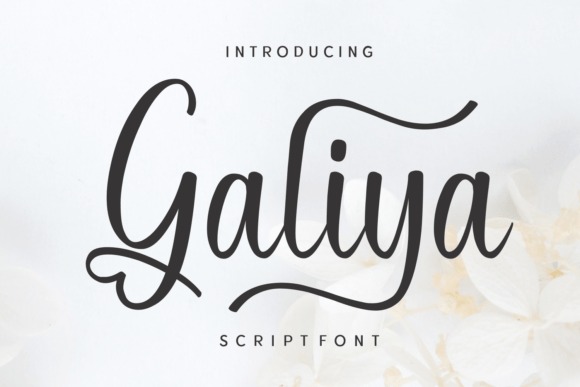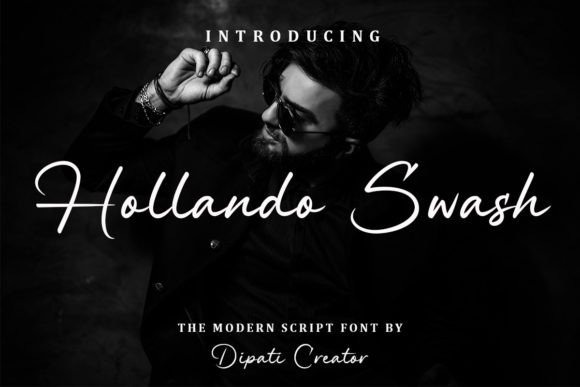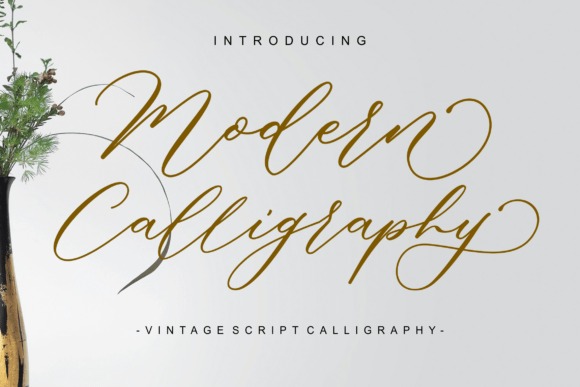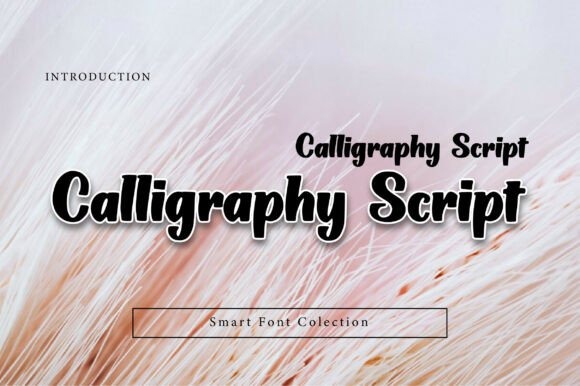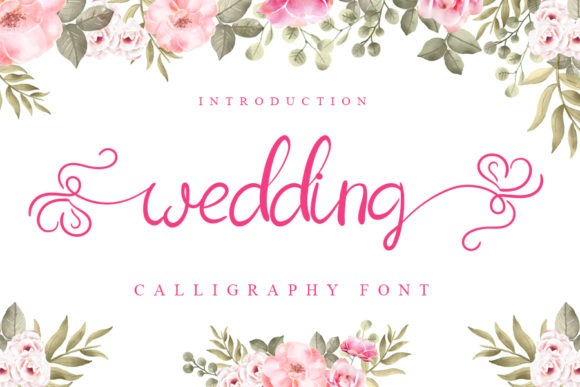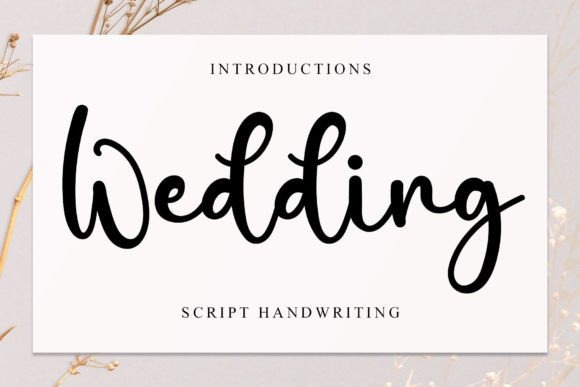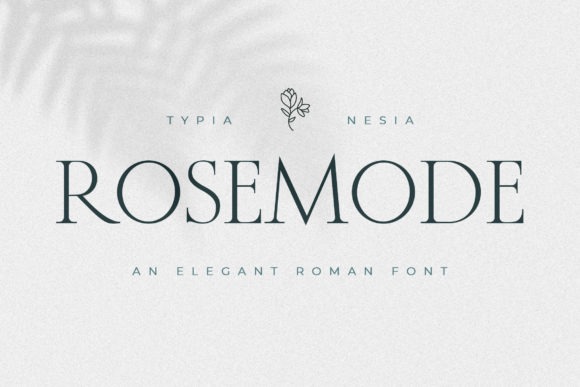
Choosing the Best Wedding Fonts in Canva for Invitations
The best wedding fonts in Canva-style invitation designs usually do one of two jobs: create a memorable romantic focal point or keep important details polished and readable. I like combining an expressive script for the couple’s names with a restrained serif for the date, venue, RSVP information, and smaller supporting copy.
For this list, I focused on Creative Fabrica fonts that suit elegant invitation layouts rather than collecting nineteen similar calligraphy faces. You’ll find graceful scripts, understated handwritten styles, and luxury-inspired serifs that can help with everything from formal black-tie stationery to airy garden wedding suites. These are downloadable font files rather than a claim that every typeface comes preinstalled in Canva.
The best wedding fonts for elegant Canva invitation designs balance romance with readability. Use flowing scripts such as Joseph Sophia or Galiya for names and short headings, then choose a refined serif such as Rosemode, Notica Serif, or Zarla for structured text. If your Canva workspace supports custom font uploads, compatible font files can be added through Canva’s font-upload tools.
| Joseph Sophia | Romantic couple names | Script |
| Filanttica | Classic invitations | Cursive script |
| Our Wedding | Formal stationery | Calligraphy script |
| Galiya | Modern luxury invites | Elegant script |
| Hollando Swash | Decorative name treatments | Swash script |
| Modern Calligraphy | Traditional romance | Calligraphy |
| Calligraphy Script | High-contrast headlines | Calligraphy script |
| Wedding Sweet | Relaxed romantic suites | Script |
| Wedding by YanStudio | Contemporary calligraphy | Handwritten script |
| Rosemode | Editorial invitations | Thin serif |
| Notica Serif | Luxury headings | Display serif |
| Zarla | Modern formal layouts | Serif |
| Luxora Serif | Soft luxury stationery | Display serif |
| Luxury Fashion | Fashion-led weddings | Display serif |
| SerifLuxe | Romantic statement text | Decorative serif |
| Simple Fits | Minimalist invitations | Thin script |
| Wedding Invitation | Personalized headings | Handwritten |
| Sweetheart Serif | Romantic themed details | Decorative serif |
| Elegant | Floral wedding details | Decorative font |
19 Elegant Wedding Fonts for Canva Invitation Projects
1. Joseph Sophia
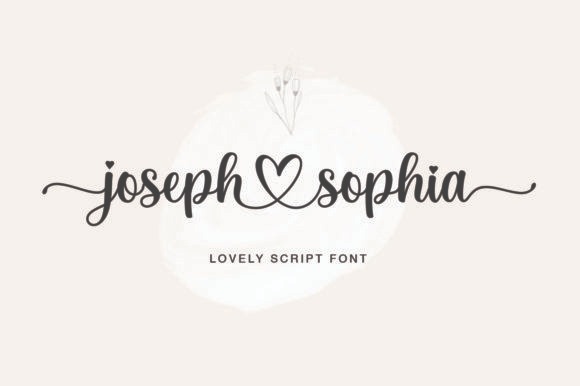
Joseph Sophia is a flowing handwritten script for romantic names, monograms, and short invitation headlines. Its varied baseline, smooth strokes, glyphs, alternates, and decorative swashes give the lettering enough movement to make a simple centered layout feel more personal without requiring floral graphics around every line.
I’d use Joseph Sophia most prominently for the couple’s names and keep the logistical text in a quiet serif or sans serif. The extended forms are part of its appeal, but using decorative characters on every word can make a compact invitation feel crowded. Give this font generous breathing room and let one flourish carry the design.
Best for: couple names, save-the-date headings, romantic stationery
Key features: flowing script, varying baseline, alternates, swashes
2. Filanttica
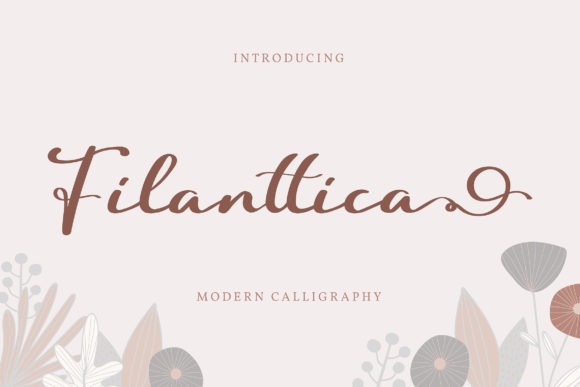
Filanttica is a cursive handwritten font aimed at invitations and other designs that benefit from a personalized, graceful signature feel. The script includes accessible glyphs and swashes, making it a useful candidate when the names need decorative entry or exit strokes rather than a completely plain handwritten treatment.
My pick for Filanttica would be a classic invitation with plenty of white space, especially when the names sit above a small uppercase serif date. Its cursive construction has more personality than a text face, so I wouldn’t ask it to carry the venue address or a paragraph of reception details. It is strongest as an accent.
Best for: traditional invitations, names, thank-you cards
Key features: cursive structure, elegant handwriting, glyphs, swashes
3. Our Wedding
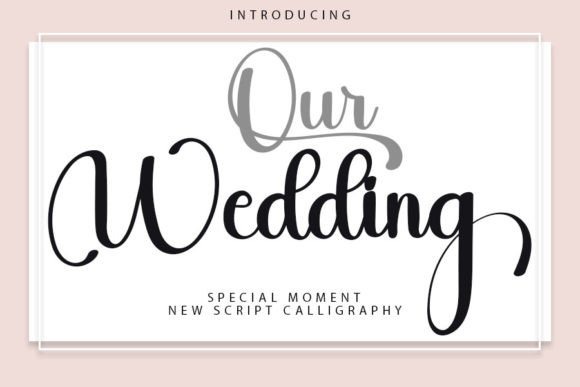
Our Wedding is an elegant script inspired by classic calligraphy but shaped with a contemporary, balanced appearance. Its stroke weight sits between overly delicate hairline lettering and heavy brush script, which makes it appealing for formal invitations where the headline needs presence without looking oversized.
I’d reach for this one when the stationery needs to feel ceremonial rather than whimsical. It could anchor a black, cream, or muted botanical invitation particularly nicely. Because the letterforms already bring movement to the page, I’d pair them with disciplined spacing and a restrained supporting face instead of adding several competing decorative elements.
Best for: formal weddings, invitation headlines, classic stationery
Key features: contemporary script, calligraphic influence, balanced strokes
Whichever font you select, design around the actual wording rather than the specimen image. Test both names, the smallest informational text, and the final invitation dimensions before building the rest of the wedding suite. Elegant typography is easiest to achieve when the font has one clear role and enough space to perform it.